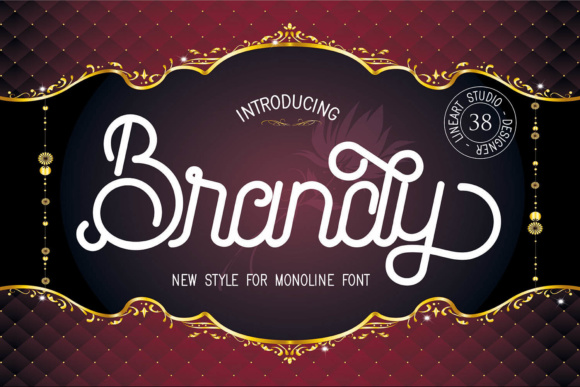
The Brandy Font: A Timeless Elegance for Your Designs
A Closer Look at the Brandy Font
The Brandy Font is a versatile font duo that consists of two variations: script and serif. The script comes in a regular and clean version, while the serif comes in a regular version featuring capital letters. This thoughtful design allows you to create a harmonious and balanced look in your designs. The Brandy Font boasts an elegant, vintage touch that makes it perfect for logos, web banners, quotes, and much more!
- ✨ Elegant and sophisticated design that’s perfect for vintage-inspired projects
- ✅ Versatile font duo with script and serif variations
- ✅ Clean and regular versions of the script font for added flexibility
- ✅ Capital letters in the serif font to complete the rhythm of your mono design
As for small quirks or limitations, I did notice a few things to keep in mind:
- ⚠️ Limited font weights, which might not be ideal for projects requiring a wide range of weights
- 🤔 Some users might find the font a bit too ornate for certain design applications
The Story Behind the Brandy Font
The Brandy Font was designed with the intention of creating a timeless, elegant font that would evoke a sense of sophistication and refinement. Inspired by classic typography and vintage design, the font’s creator aimed to craft a font that would be both versatile and beautiful.